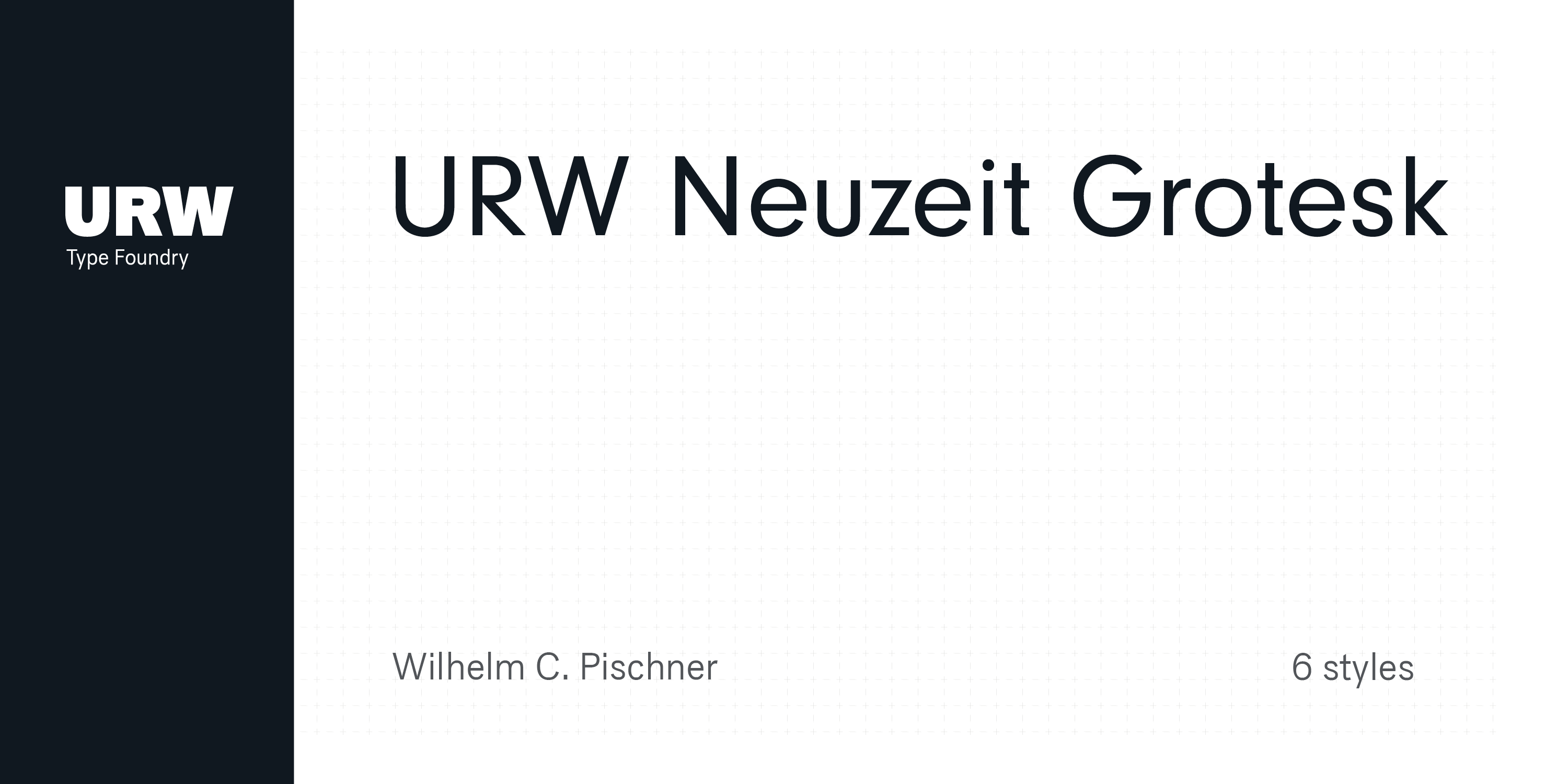
Neuzeit Grotesk Font is perfect for contemporary architectural branding, modern art museum exhibitions, progressive design studio identities, minimalist corporate communications, avant-garde cultural publications, and cutting-edge design projects that require forward-thinking, innovative typography.
This font is exciting because it embodies the spirit of the "new time" in design philosophy, featuring bold geometric letterforms that convey modernity, innovation, and the progressive ideals of 20th-century design movements while maintaining striking contemporary relevance.
The Neuzeit Grotesk Font family includes light, regular, medium, and bold weights with condensed variants, offering uppercase and lowercase letters, geometric numerals, modernist punctuation marks, progressive symbols, and clean elements designed for contemporary design applications.
Progressive designers consistently choose Neuzeit Grotesk Font Free Download for projects requiring authentic modernist character and innovative design authority. This revolutionary typeface transforms contemporary communications into compelling statements of design evolution that immediately resonate with audiences seeking genuine avant-garde aesthetics and progressive visual solutions. The font's modernist character makes it exceptionally effective for design galleries, architectural practices, and cultural institutions where innovative thinking and design leadership must be communicated through every visual element. Its "new time" philosophy bridges historical design revolution with contemporary creative movements, making it invaluable for brands celebrating design innovation and cultural progress. The boldly crafted letterforms maintain their progressive appeal across digital installations and print publications, ensuring consistent brand recognition and modernist authority. Whether you're developing contemporary art venue branding, creating design conference materials, or designing progressive cultural campaigns, this typeface provides the innovative voice and visual boldness that distinguishes genuine design leadership from conventional creative services, establishing immediate credibility among design professionals who appreciate revolutionary typography and understand the continuing relevance of modernist principles in shaping contemporary visual culture and progressive design thinking.